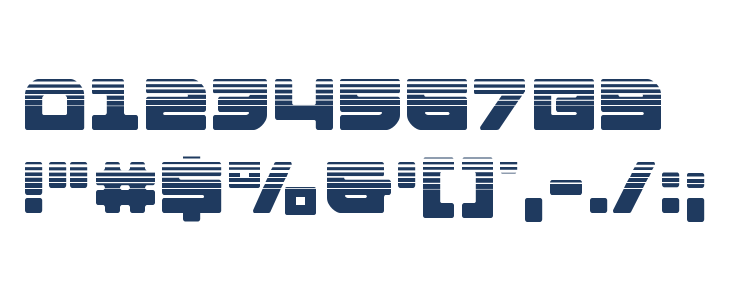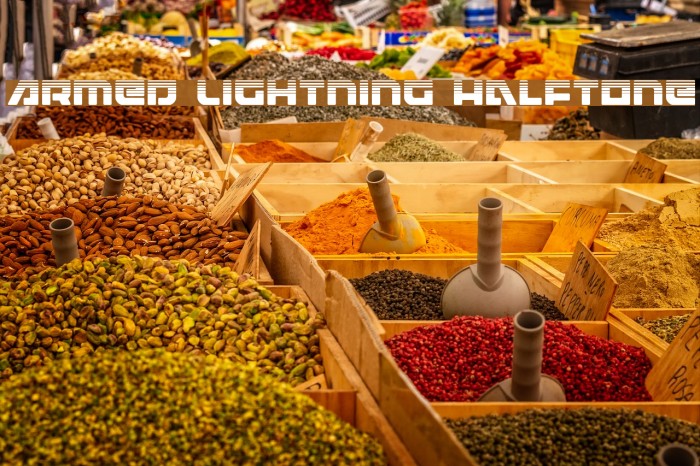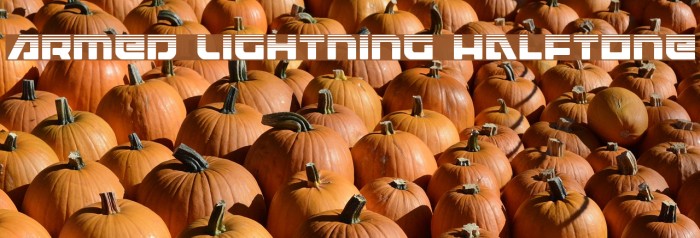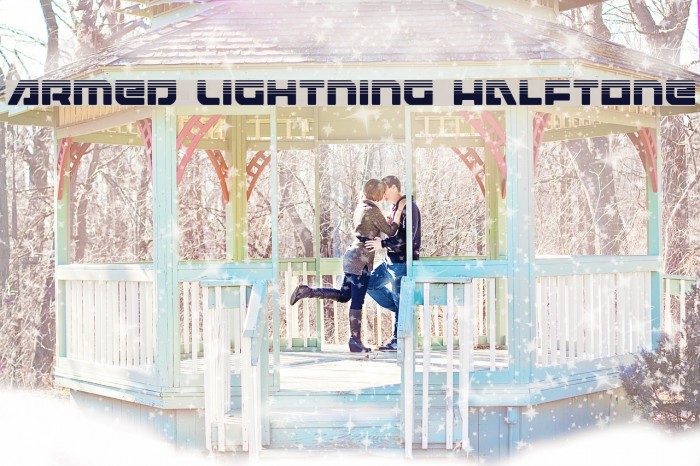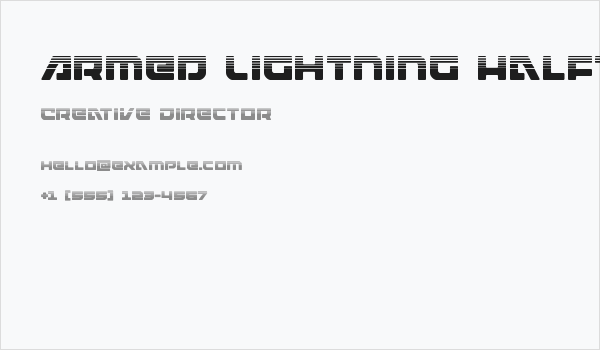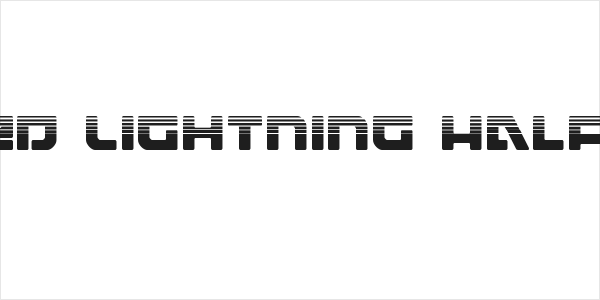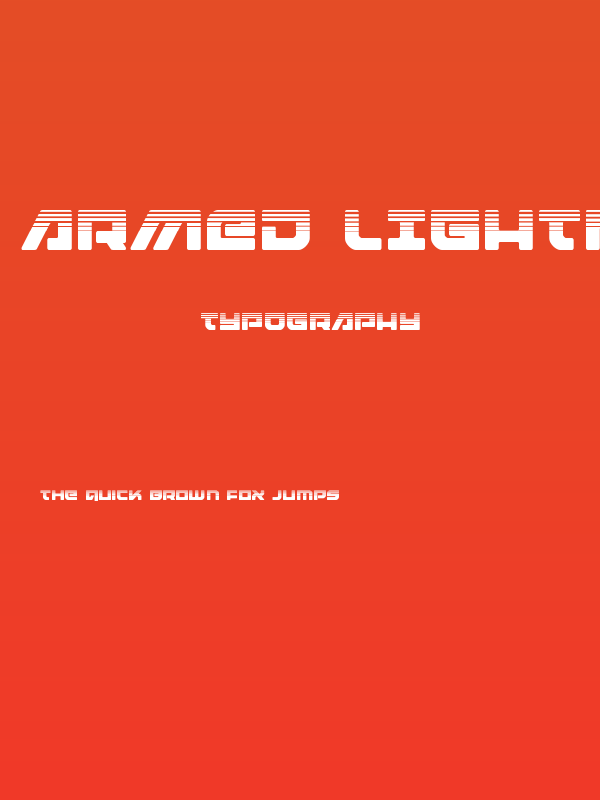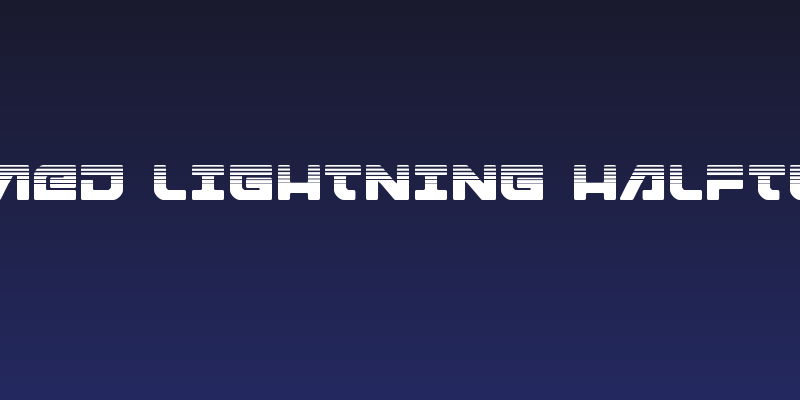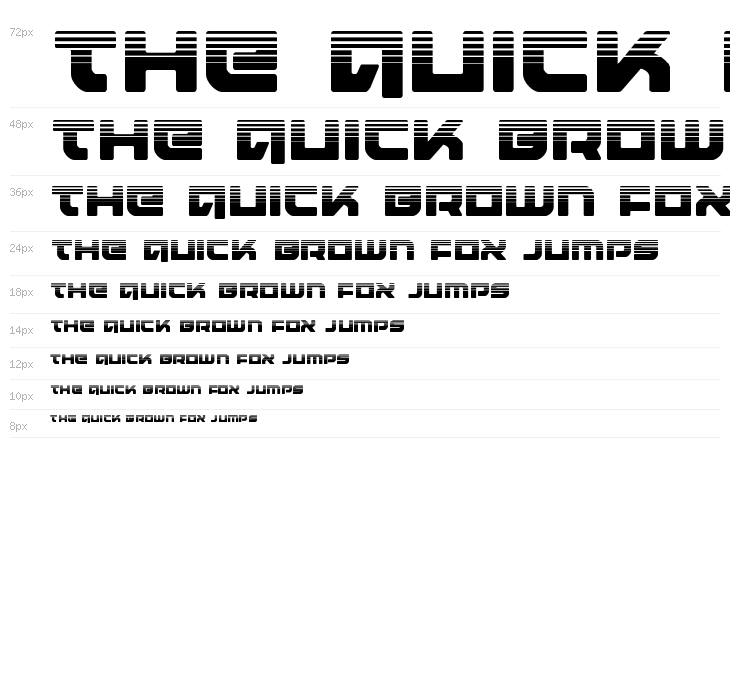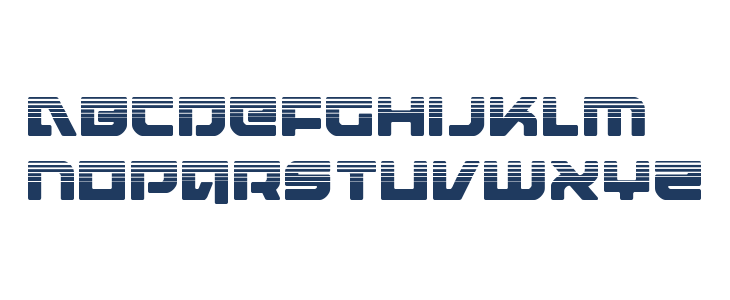
Armed Lightning Halftone Font
Armed Lightning Halftone Description
This font features a bold, futuristic design with a halftone effect that gives it a dynamic and energetic appearance. The characters are constructed with a series of horizontal lines that create a sense of movement and speed, reminiscent of lightning or fast-paced action. The uppercase and lowercase letters maintain a consistent style, with sharp angles and geometric shapes that enhance its modern aesthetic. The numbers and special characters follow the same design principles, ensuring uniformity across all glyphs. This font is ideal for projects that require a strong visual impact and a contemporary feel.